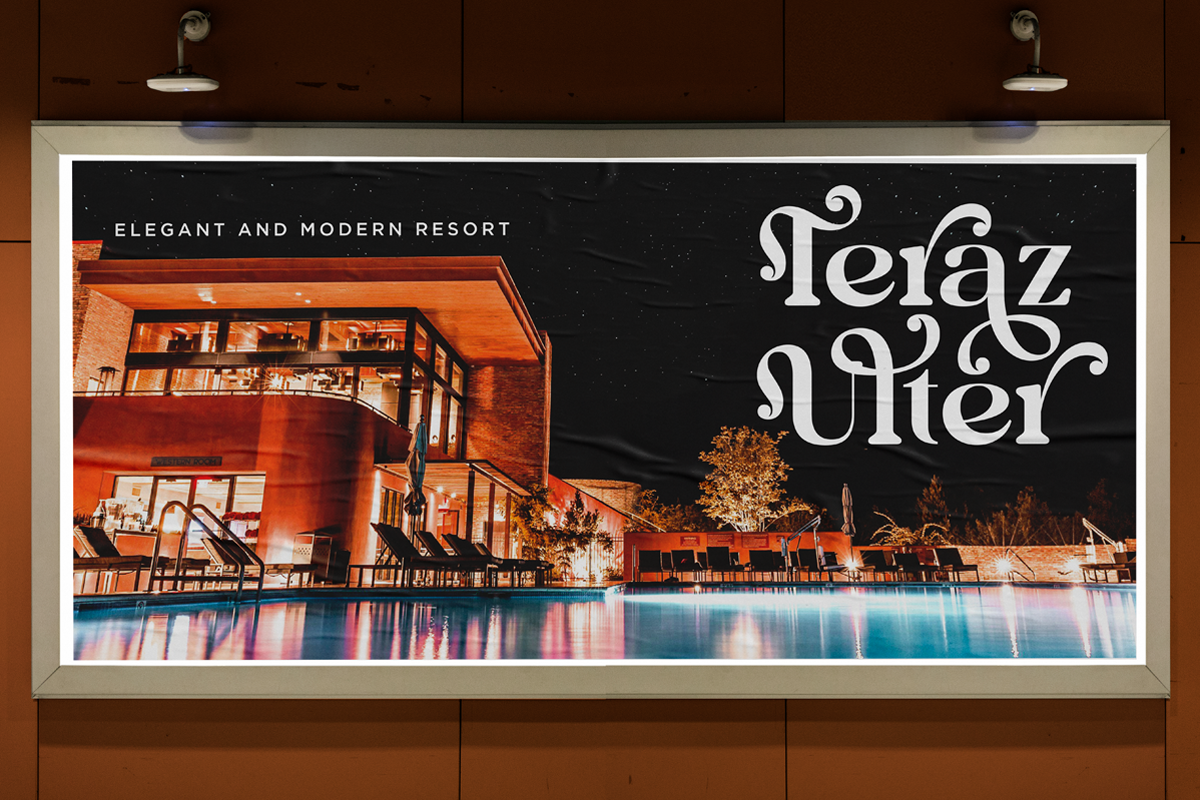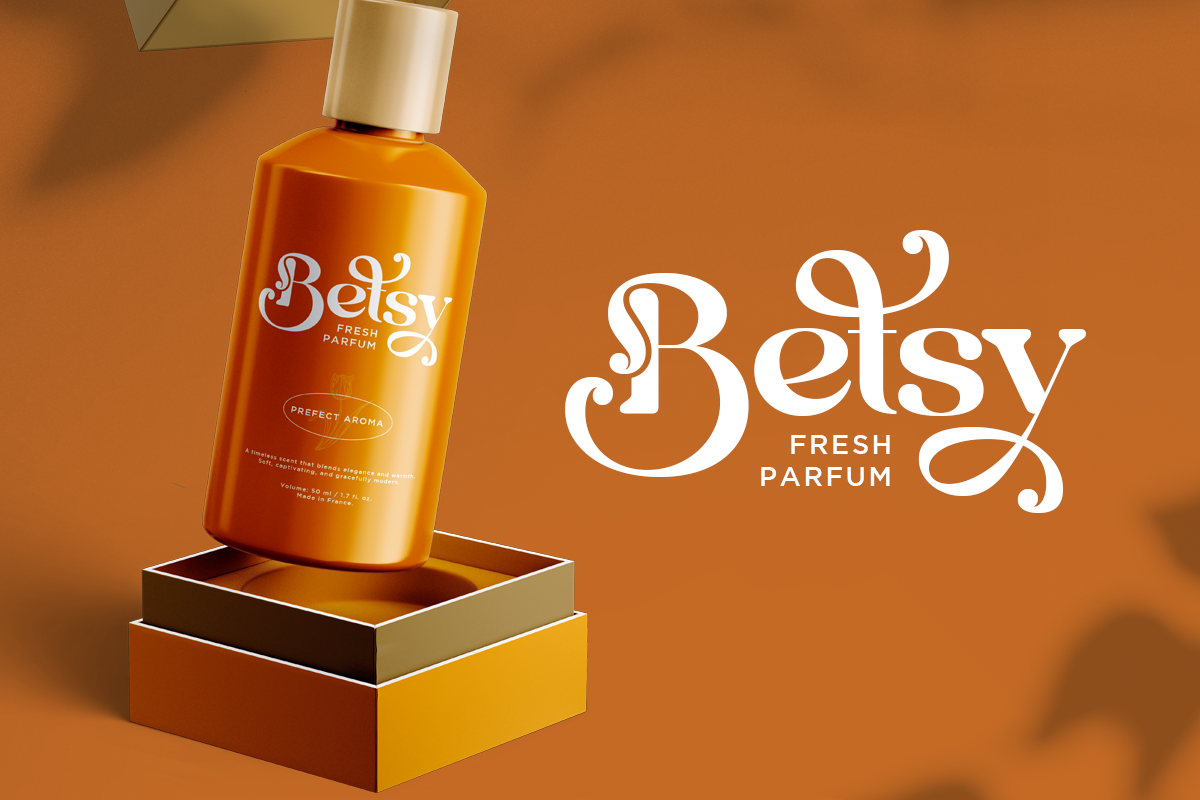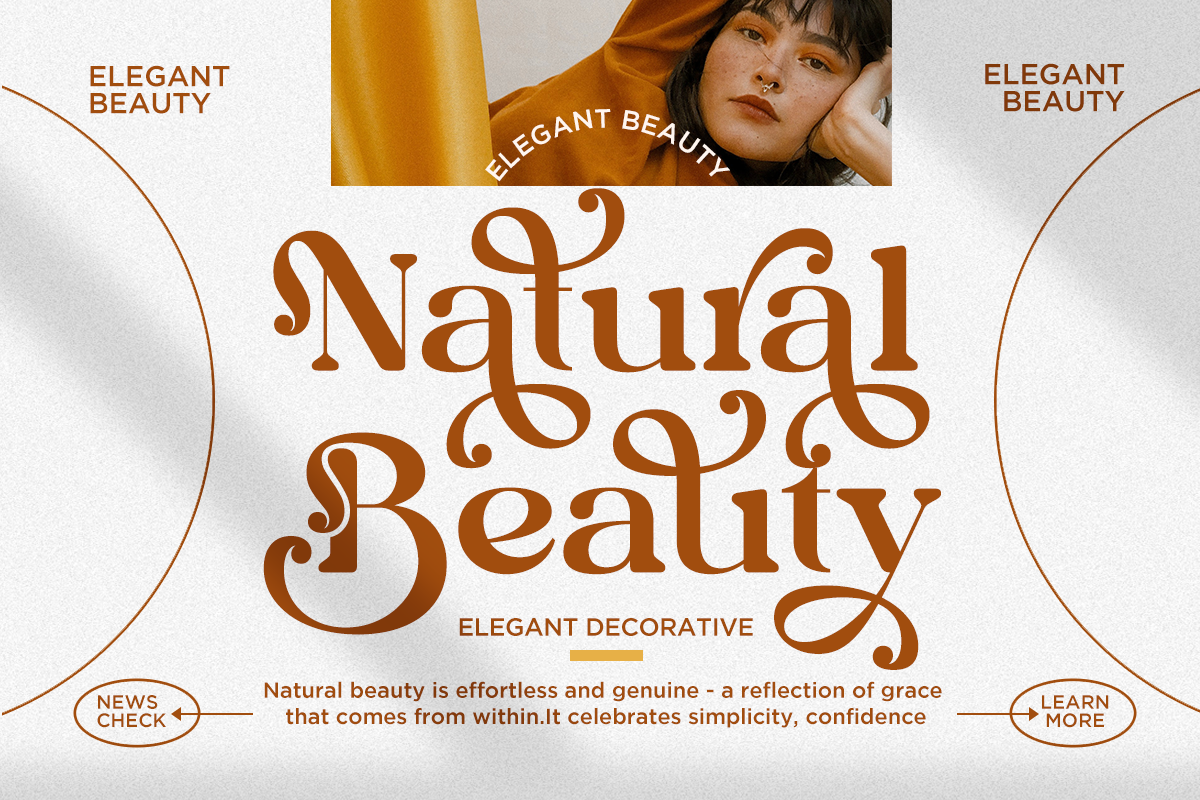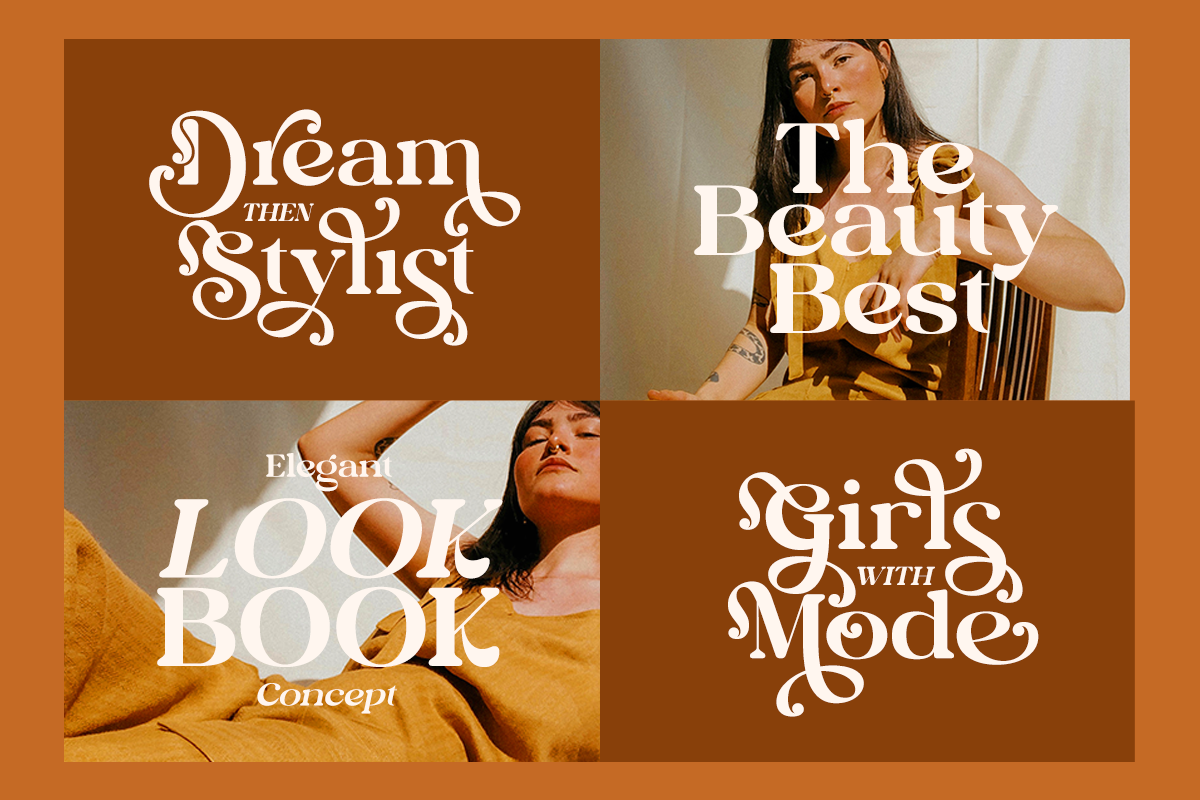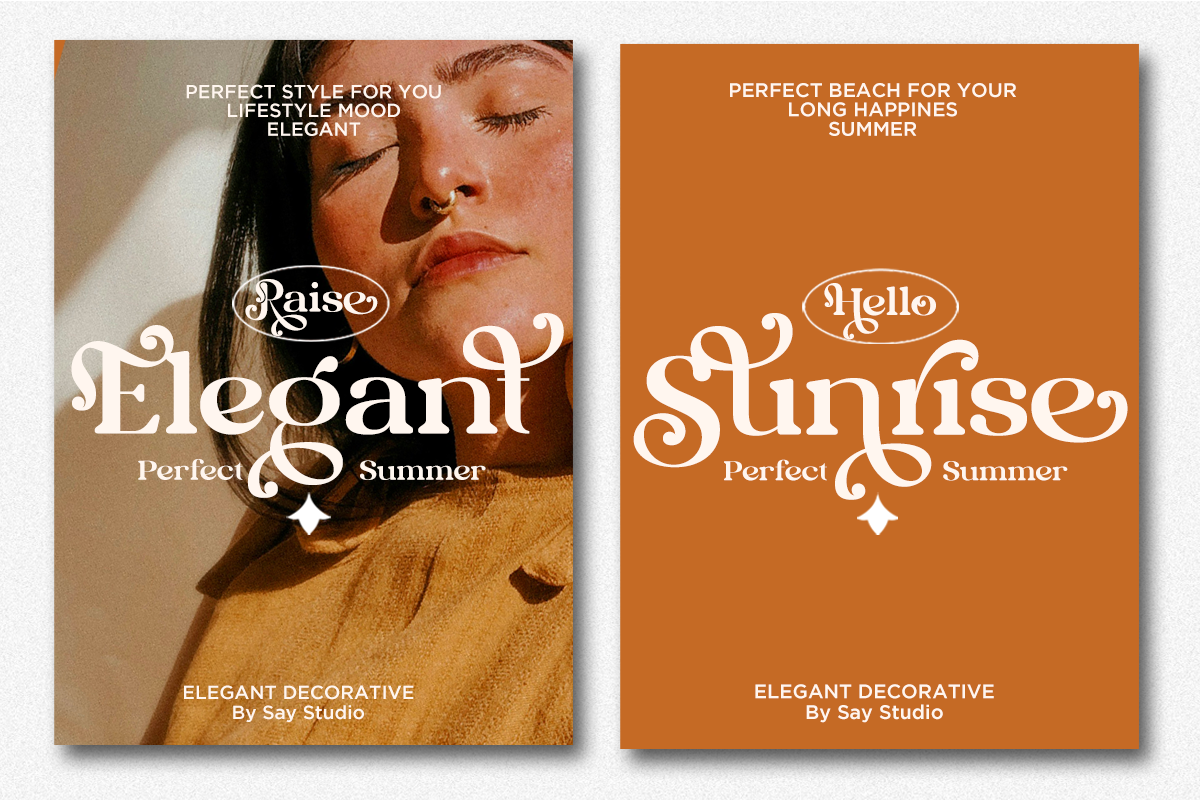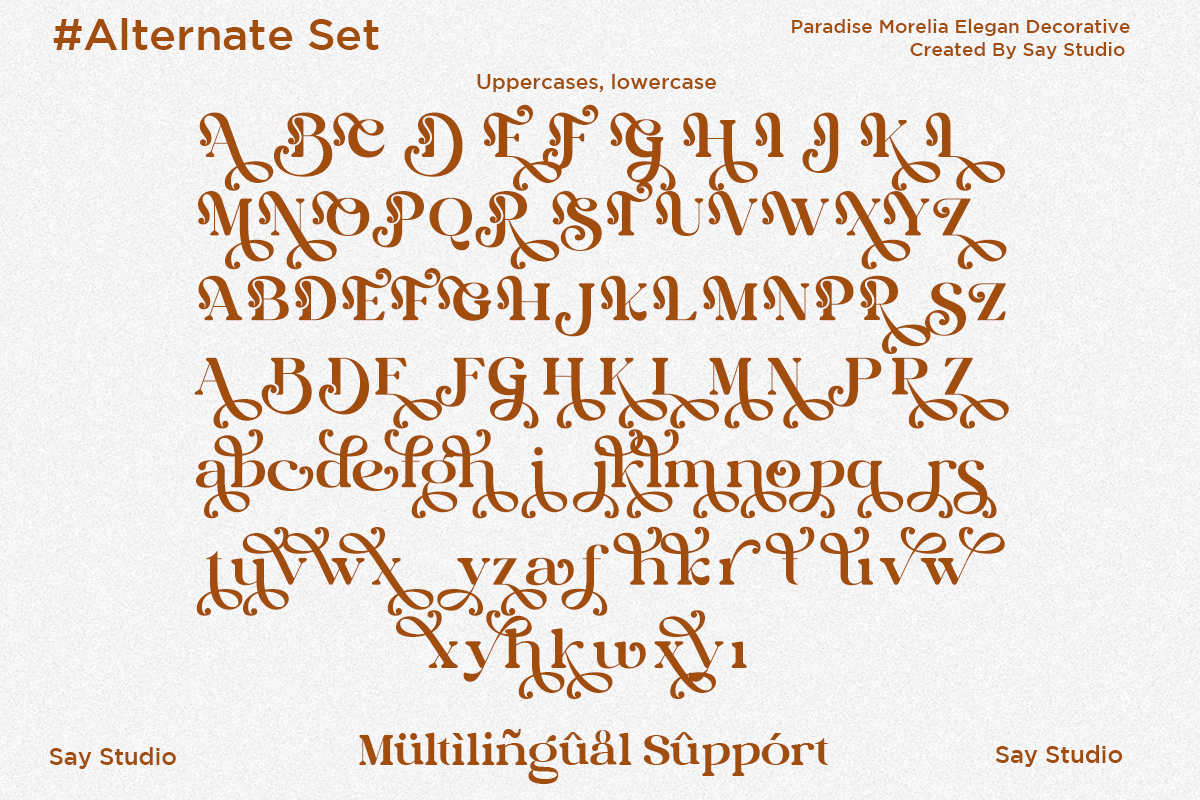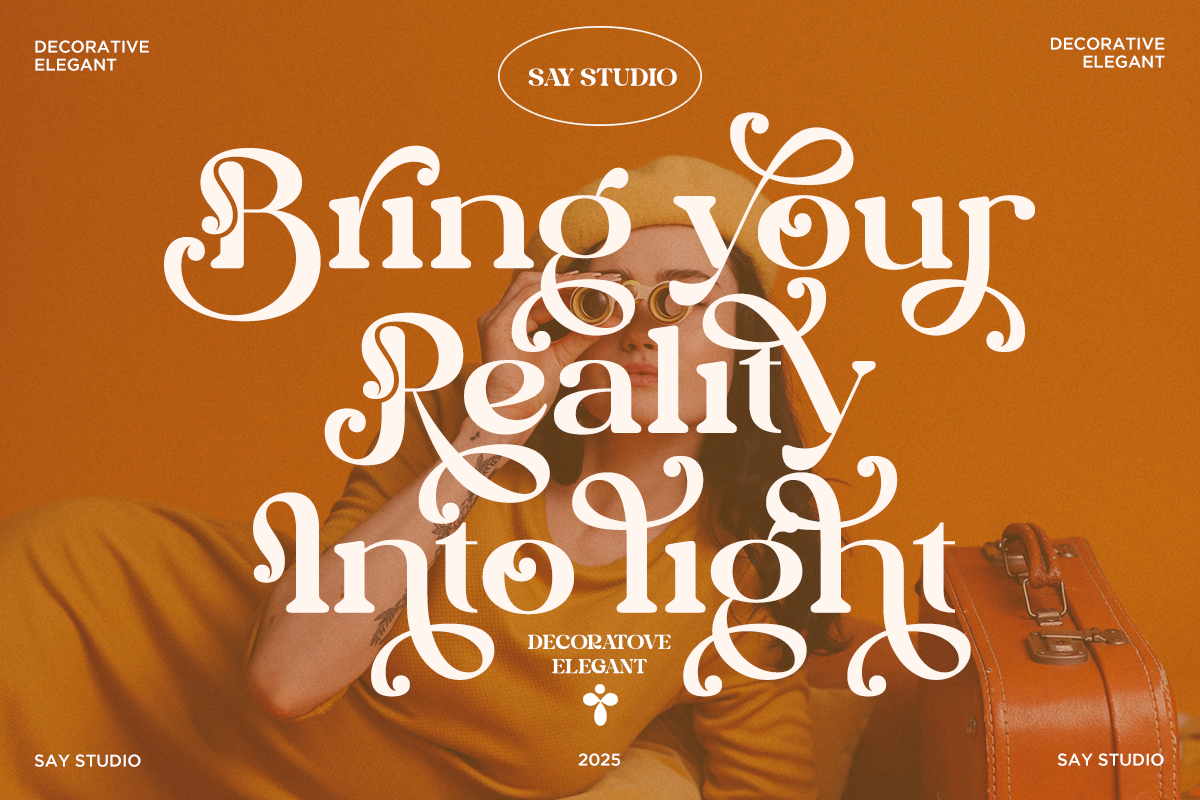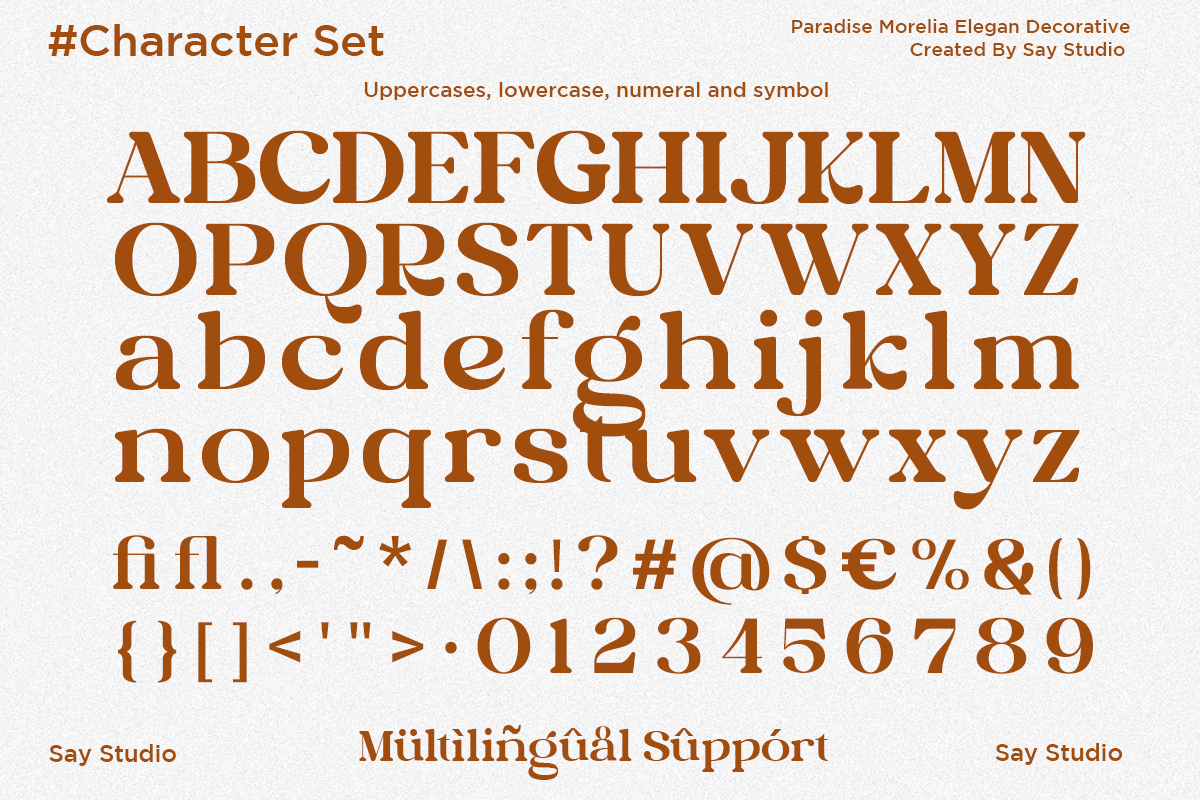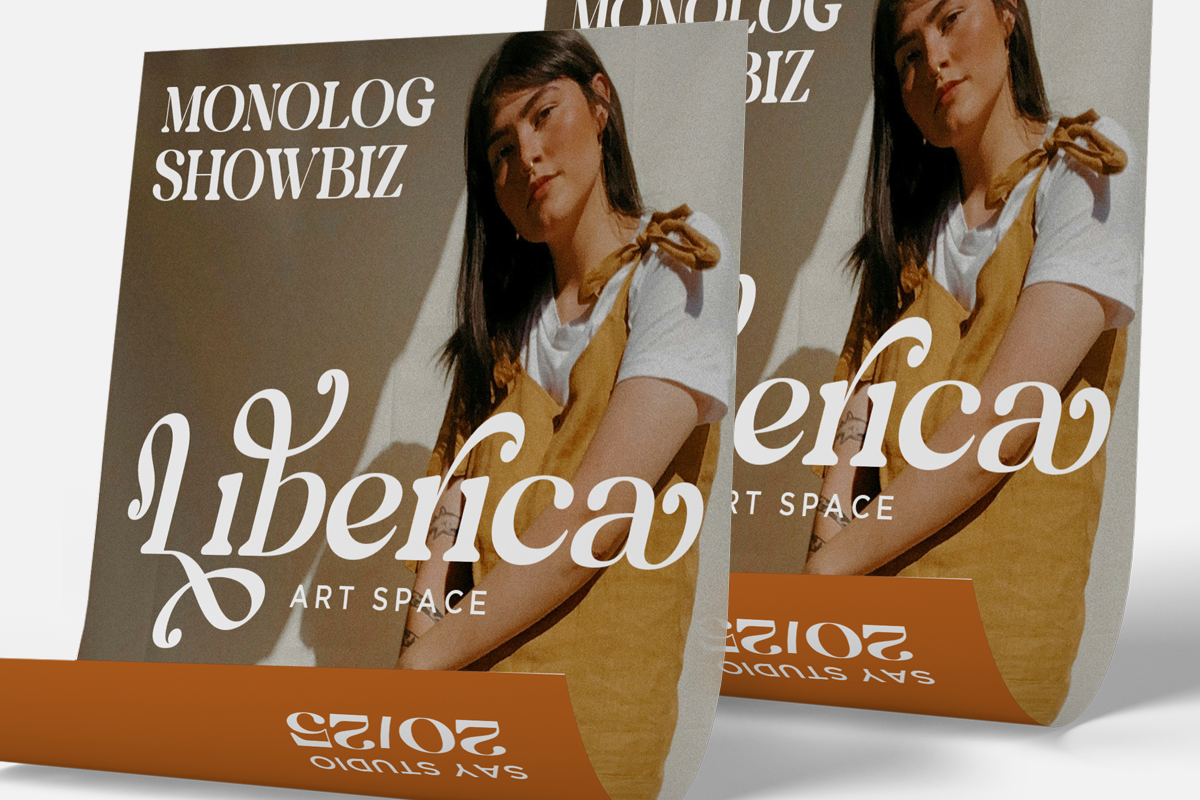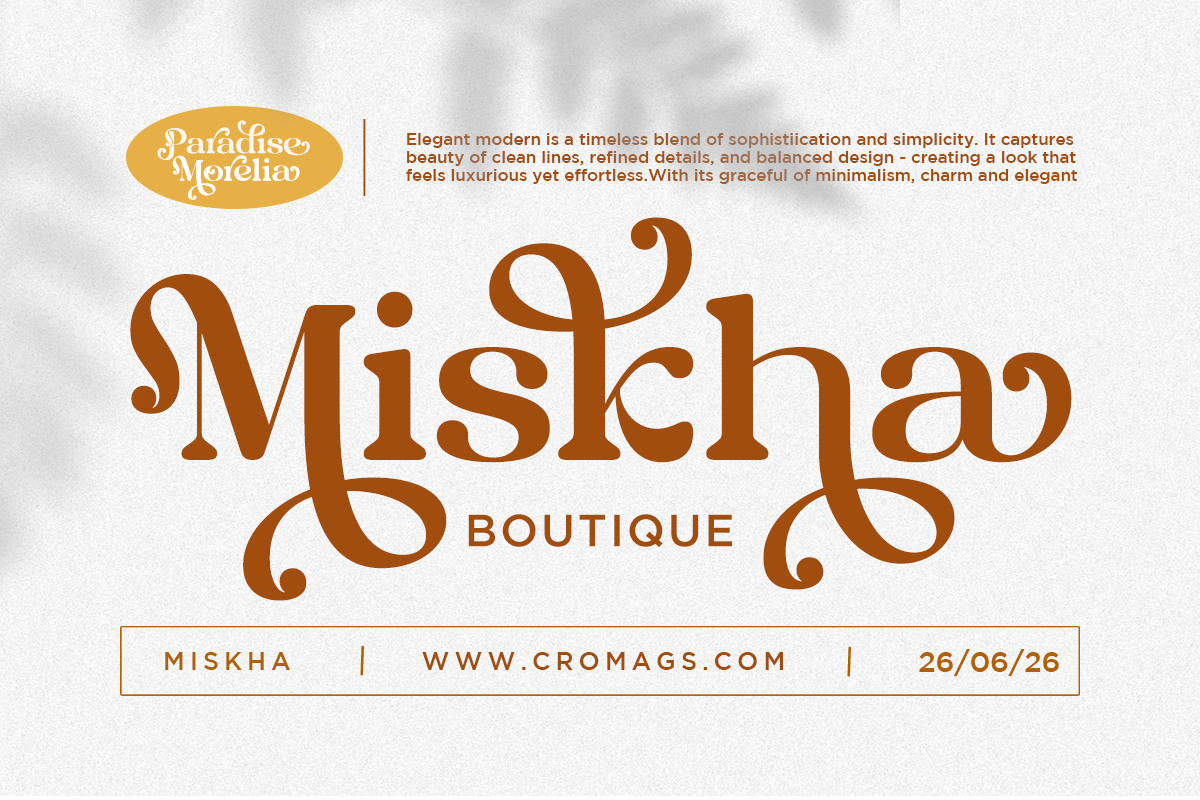
Decorative Retro - Paradise Morelia
Paradise Morelia is a decorative elegant display font designed to bring sophistication, personality, and artistic charm to every creative project. Featuring graceful curves, luxurious swashes, and beautifully crafted letterforms, this typeface transforms ordinary typography into a captivating visual statement that feels timeless yet modern.
Perfect for luxury branding, fashion editorials, beauty packaging, cosmetic labels, wedding invitations, boutique logos, magazines, social media, and premium marketing materials, Paradise Morelia creates an unforgettable impression while maintaining excellent readability. Its expressive alternates and decorative details allow designers to craft unique typography with effortless elegance.
Whether you're designing a fashion campaign, creating elegant packaging, building a premium brand identity, producing editorial layouts, or developing stylish digital content, Paradise Morelia delivers a refined aesthetic that elevates every project. Complete with uppercase, lowercase, numbers, punctuation, multilingual support, and beautiful alternate characters, it is an essential display font for designers seeking luxury and creativity.
Regular and Italic
Number, Symbol, and Punctuation
Multi Language Support